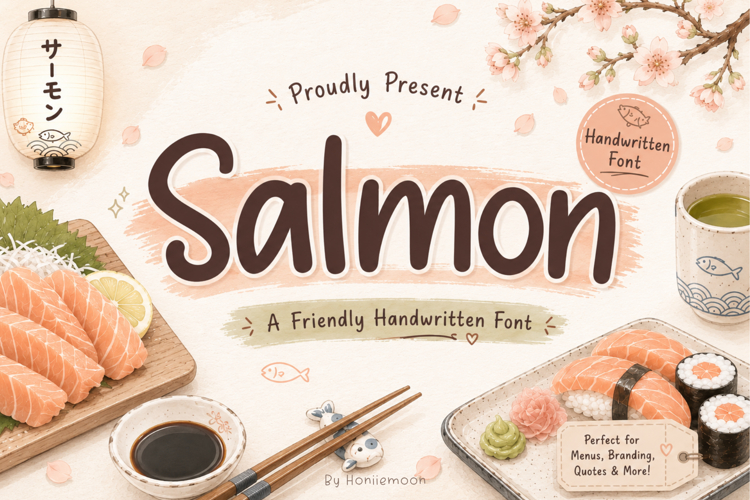
Meet Salmon, a cute and friendly handwritten font inspired by cozy Japanese cafés, fresh salmon sushi, and modern food packaging. Its playful handwritten style is perfect for creating eye-catching branding, restaurant menus, café logos, product packaging, labels, stickers, social media graphics, invitations, and printable designs.